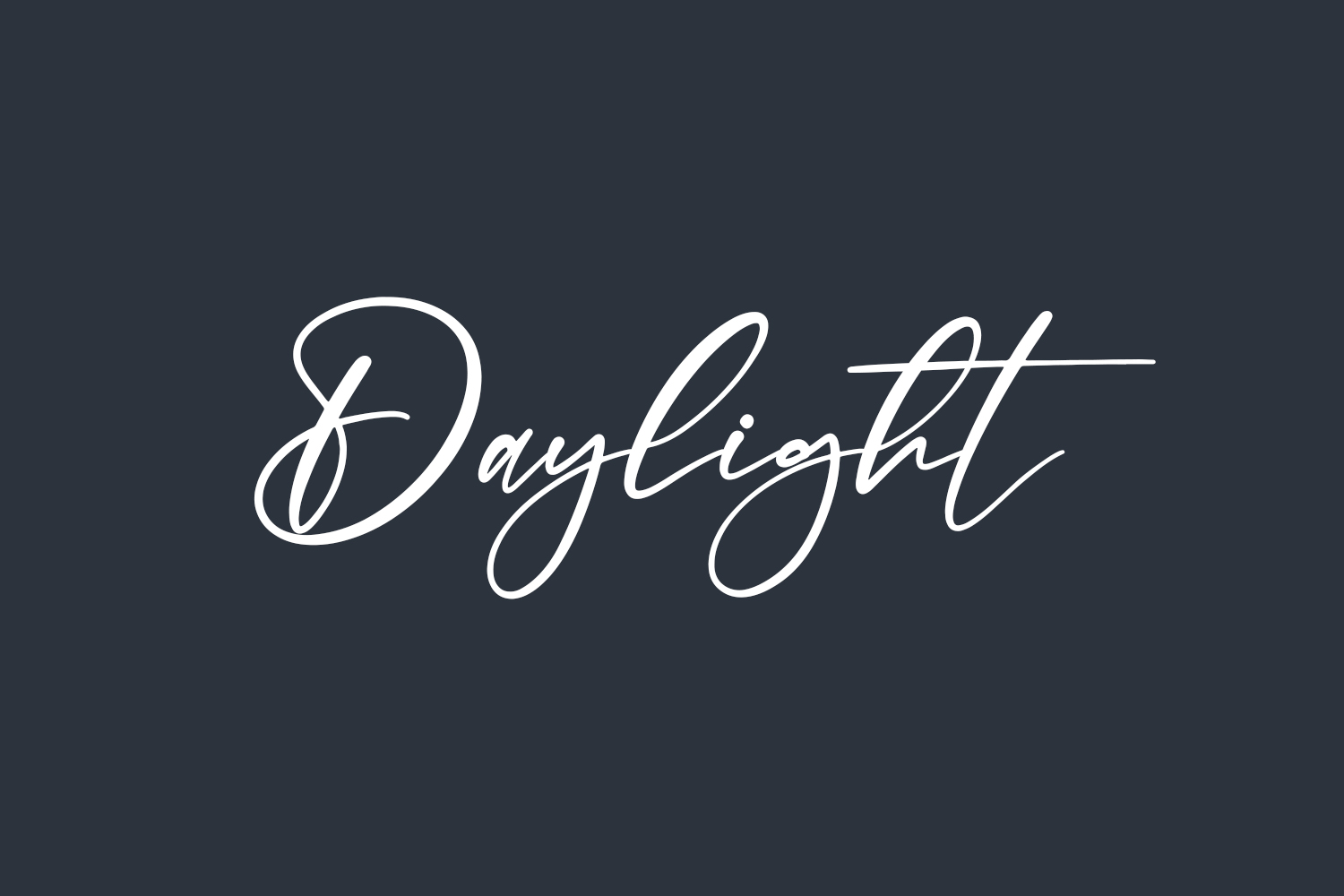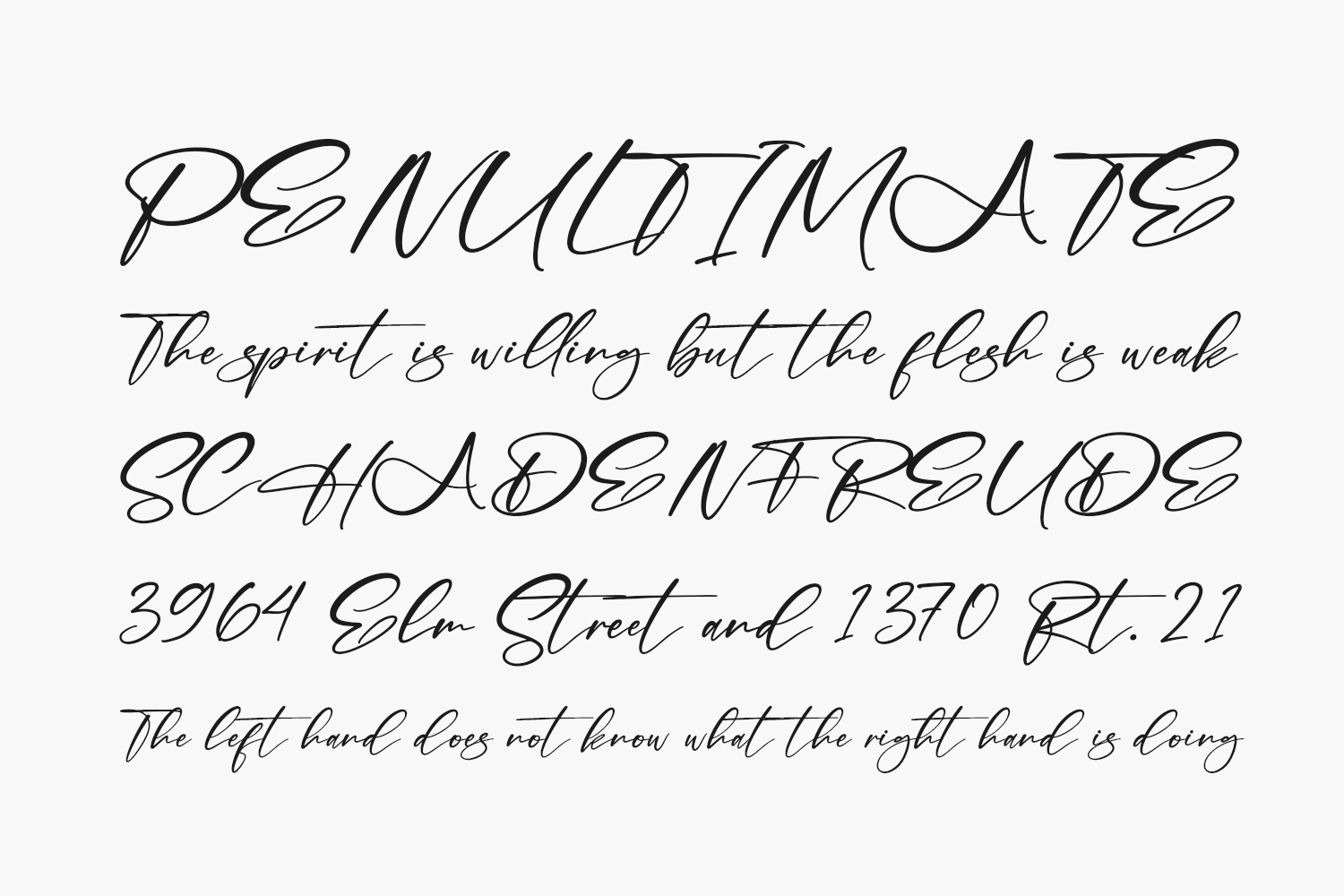
Daylight Free Font embodies a romantic and elegant calligraphy font, with characters gracefully dancing along the baseline. Incorporating this font into your design projects will infuse them with a touch of luxury, limited only by your creative imagination. Daylight Free Font is free for personal use only. Please purchase the full version for commercial use.
Designed by Letterena Studios